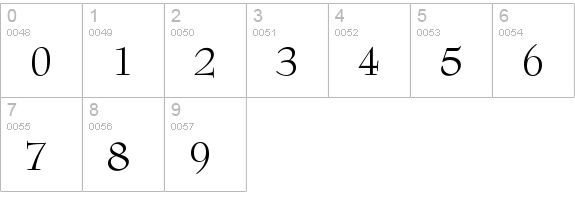
Bernhard Modern Font Details
Bernhard Modern font is a timeless and elegant typeface that exudes sophistication and class. With its clean lines and classic design, this font is perfect for adding a touch of refinement to any project. The graceful curves and sharp serifs of Bernhard Modern make it ideal for formal invitations, branding materials, and editorial designs. What sets Bernhard Modern font apart is not only its beautiful aesthetics but also the fact that it is available for free download at FontsMarket.com. This means that you can easily access this premium font without any cost, making it a valuable addition to your font library. Whether you're a designer looking to elevate your work or a business owner seeking a polished look for your brand, Bernhard Modern font offers a sophisticated solution that won't break the bank. Unlock the beauty and versatility of Bernhard Modern font today and take your projects to the next level.